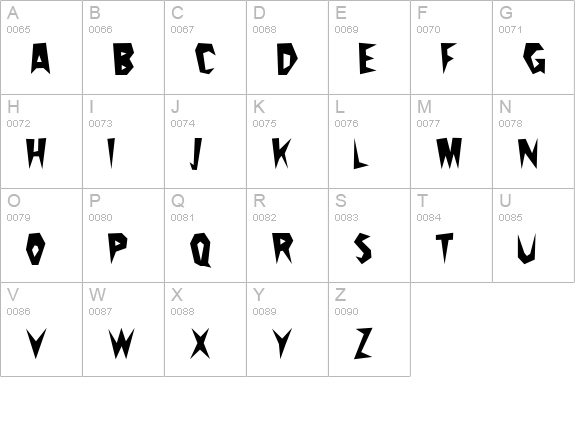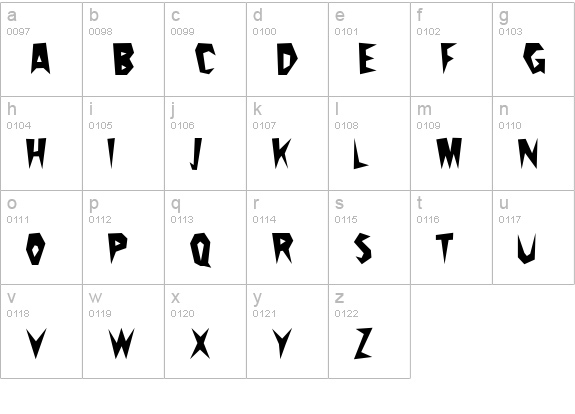
Cactus Plain Font Details
Cactus Plain is a stunningly unique font that combines the ruggedness of the desert with the elegance of typography. Its sharp, angular lines evoke the spiky beauty of a cactus, while its clean and minimalist design adds a touch of sophistication. Designed with versatility in mind, Cactus Plain is perfect for a wide range of creative projects. Whether you're designing a poster, crafting a logo, or creating eye-catching headlines, this font will make your work stand out from the crowd. But the best part? Cactus Plain is completely free! That's right, this extraordinary font is freely available to download at FontsMarket.com. We believe that creativity should be accessible to all, and that's why we're offering this incredible font at no cost. So go ahead and unleash your creativity with Cactus Plain. Download it now and start adding a touch of desert magic to your designs.